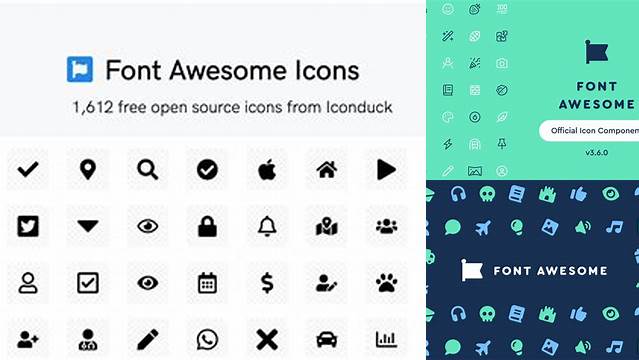
Font Awesome Free 5.15.3: A Deep Dive
Let's explore Font Awesome Free 5.15.3 in detail. Guys, if you're into web development, you've probably heard of Font Awesome. It's like the superhero of icons, making our websites look slick without needing a million images. Today, we're diving deep into version 5.15.3, which is a specific release that many projects still rely on. We'll cover everything from what it is, why it's cool, and how to use it.
What is Font Awesome Free 5.15.3?
Font Awesome Free 5.15.3 is a library of scalable vector icons that can be customized with CSS. Think of it as a massive collection of tiny images that you can resize without losing quality. The 'Free' part means it's open-source and you can use it without paying a dime, as long as you follow the license. Version 5.15.3 is a specific release, so it has a defined set of icons and features that were available at that time. Why is this important? Well, older projects might depend on this exact version to maintain visual consistency. When you start digging into older projects, you'll likely encounter Font Awesome. It's kinda like the foundation of a house, supporting much of the design that shows up on websites and apps everywhere. When you use Font Awesome, you're not just throwing some icons into your project, you're also saving on development time. No longer will you have to design individual image assets, so the icons scale without loss of quality, and they look great on any screen resolution. Font Awesome's a real game-changer when it comes to making web design easier, more flexible, and professional-looking. This makes it perfect for web developers of any skill level. I mean, who doesn't like saving time on their projects?
Key Features of Font Awesome 5.15.3
Let's highlight the key features of Font Awesome 5.15.3. First off, you get a huge library of icons. Seriously, there are icons for just about everything you can think of: social media, navigation, file types, and more. Another great feature is CSS customization. You can change the size, color, and even add shadows with just a few lines of CSS code. This allows you to seamlessly match the icons to your brand's style. And finally, the scalability is awesome. Since they're vector-based, these icons look crisp on any screen, whether it's a tiny phone or a giant monitor. The cool thing about the size, color, and even adding shadows is that you can change these features with just a few lines of CSS code. Font Awesome icons are also screen-reader friendly. This is essential for web accessibility because it ensures that everyone, including users with disabilities, can understand your content. Font Awesome offers features that make your icons more accessible.
Using Font Awesome Icons
So, how do you use Font Awesome icons? It's simple! Each icon has a unique class name. To display an icon, you use the <i> tag with the appropriate class. For example, <i class="fas fa-camera"></i> will display a camera icon. The fas part stands for 'Font Awesome Solid,' which is one of the styles available (others include far for Regular and fab for Brands). You can also stack icons, rotate them, and animate them with CSS. This gives you a lot of flexibility in how you use the icons. To display an icon you need to include a few CSS classes. For example, to display a camera icon, you would use <i class="fas fa-camera"></i>. Each Font Awesome icon belongs to a specific style, indicated by the first part of the class name. If you want to stack Font Awesome icons you can use the fa-stack class. If you want to rotate your icon, you can use the rotate classes, such as fa-rotate-90, fa-rotate-180, and fa-rotate-270. These can add a lot of visual interest to your project.
Customizing Icons with CSS
Customizing icons with CSS is where the real fun begins. You can change the color of an icon using the color property. The size can be adjusted with font-size. You can add shadows with text-shadow and even rotate icons with transform: rotate(). The possibilities are endless. By combining CSS with Font Awesome, you can create unique and visually appealing designs that match your brand. Want to change the color of an icon? Just use the color property in your CSS. Need to make an icon bigger or smaller? Adjust the font-size property. To add shadows to your icons, you can use the text-shadow property. You can also rotate icons using transform: rotate(). Customization is key to making your website unique. These features allow you to create unique and visually appealing designs that match your brand. It's important to experiment with different styles and effects to see what works best for your project.
Font Awesome Free vs. Pro
What's the difference between Font Awesome Free vs. Pro? The Free version is, well, free! It includes a basic set of icons that are great for most projects. The Pro version, on the other hand, offers a much larger library of icons, including more styles and advanced features. If you need a specific icon that's not in the Free version, or if you want access to premium features, then Pro might be worth the investment. But for many projects, the Free version is more than enough. The Pro version of Font Awesome gives you a much larger library of icons. The pro version also includes more styles. This is especially useful for larger projects or businesses that need a wide variety of icons to match their branding. Additionally, Font Awesome Pro often includes access to other tools and resources. This can be beneficial if you need extra support or want to take full advantage of everything Font Awesome has to offer. The Pro version is worth the investment if you need advanced features or want to support the development of Font Awesome.
Font Awesome 5.15.3 Alternatives
Looking for Font Awesome 5.15.3 alternatives? There are a few out there. IcoMoon is a popular choice that lets you create your own custom icon fonts. Material Design Icons is another great option, especially if you're using Google's Material Design framework. And then there's Fontello, which is similar to IcoMoon but with a slightly different interface. Each of these alternatives has its own strengths and weaknesses, so it's worth exploring them to see which one best fits your needs. IcoMoon allows you to create your own custom icon fonts. IcoMoon is a great choice if you need a specific set of icons that aren't available in other libraries. Material Design Icons are designed to align perfectly with Google's Material Design framework. If you are using the Material Design framework, Material Design Icons can seamlessly integrate into your project. Fontello is another alternative that allows you to create custom icon fonts. Each of these alternatives has its own unique features and benefits, so it's worth exploring them to see which one best fits your needs.
Font Awesome 5.15.3 Light
Font Awesome 5.15.3 Light icons provide a subtle and elegant look for your website. These icons have a thin stroke, making them ideal for minimalist designs. The Light style is only available in Font Awesome Pro. If you are looking for a way to add a touch of elegance to your website, the Light style is a great option. Using the Font Awesome Light style icons provides a subtle and elegant look for your website. These icons have a thin stroke, making them ideal for minimalist designs.